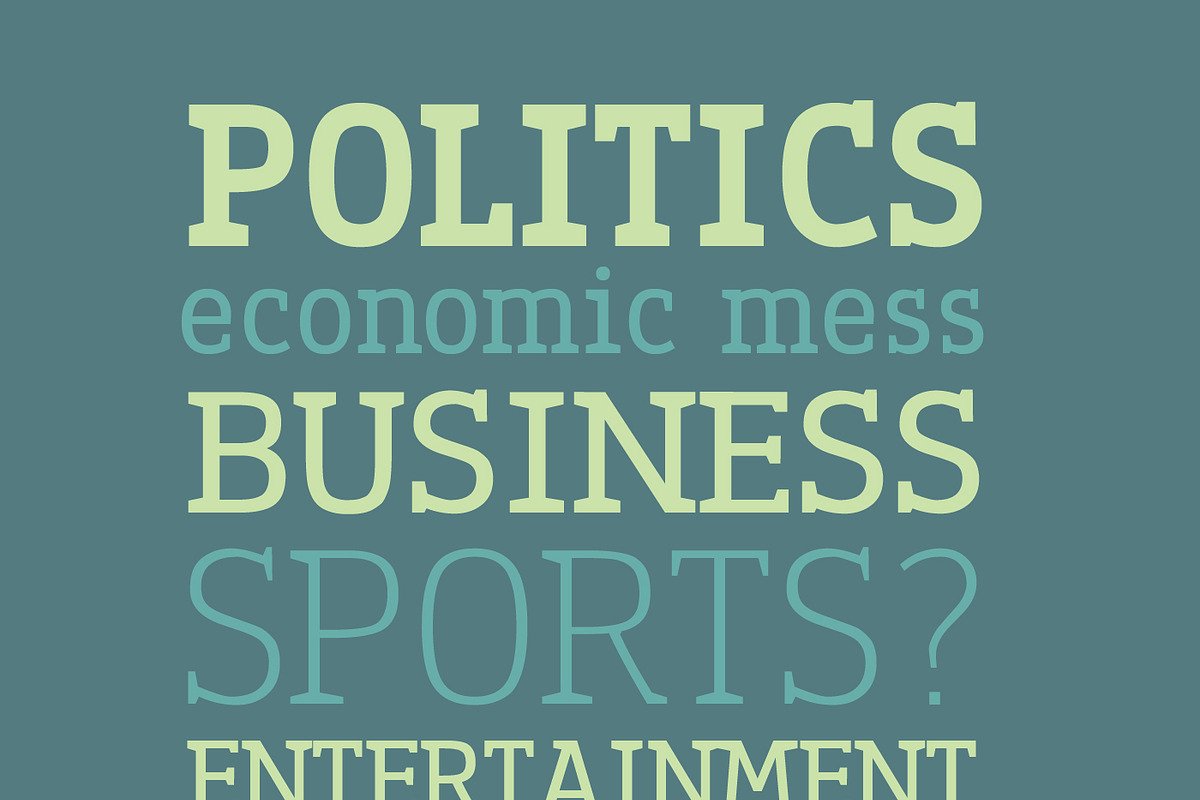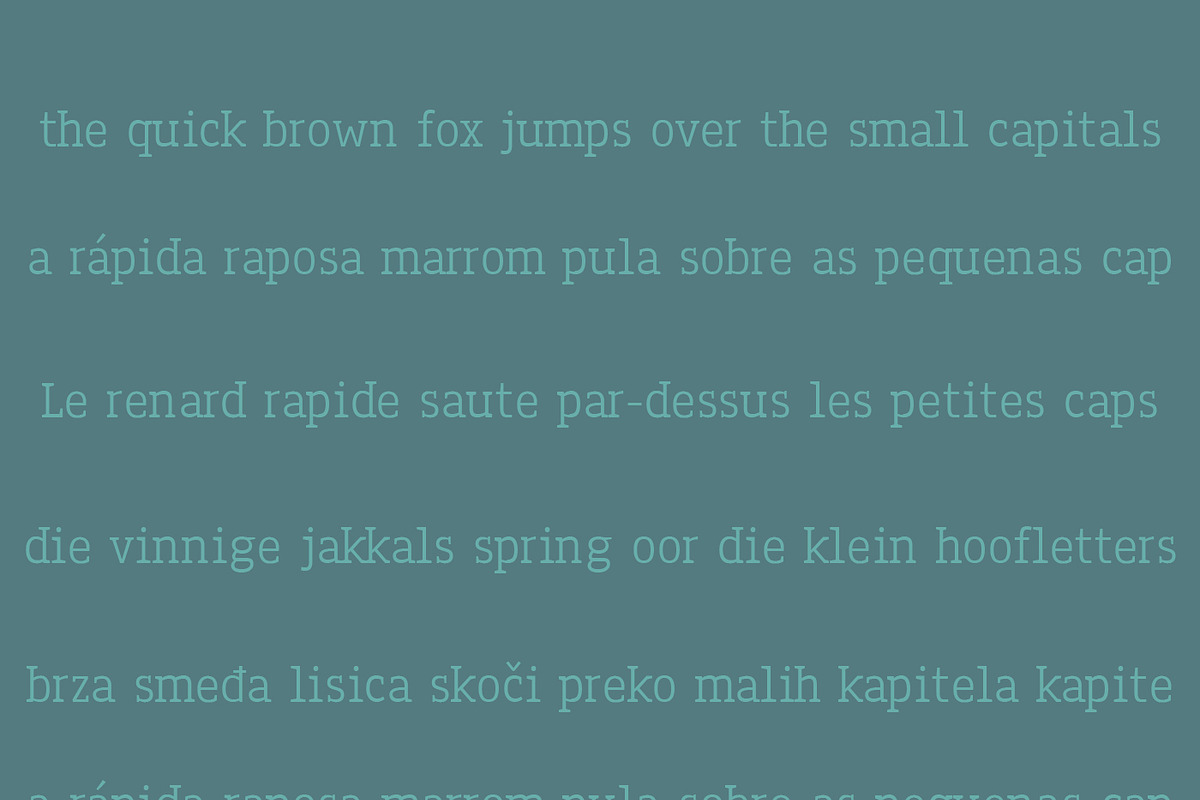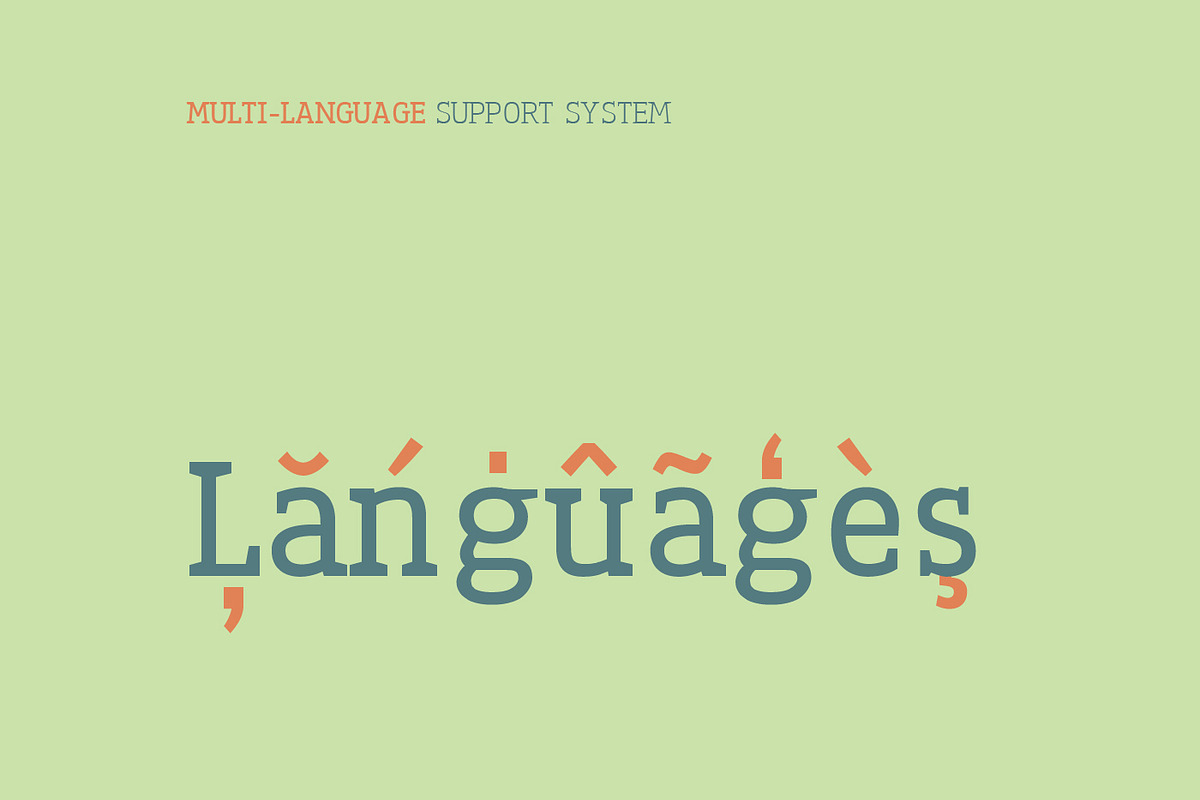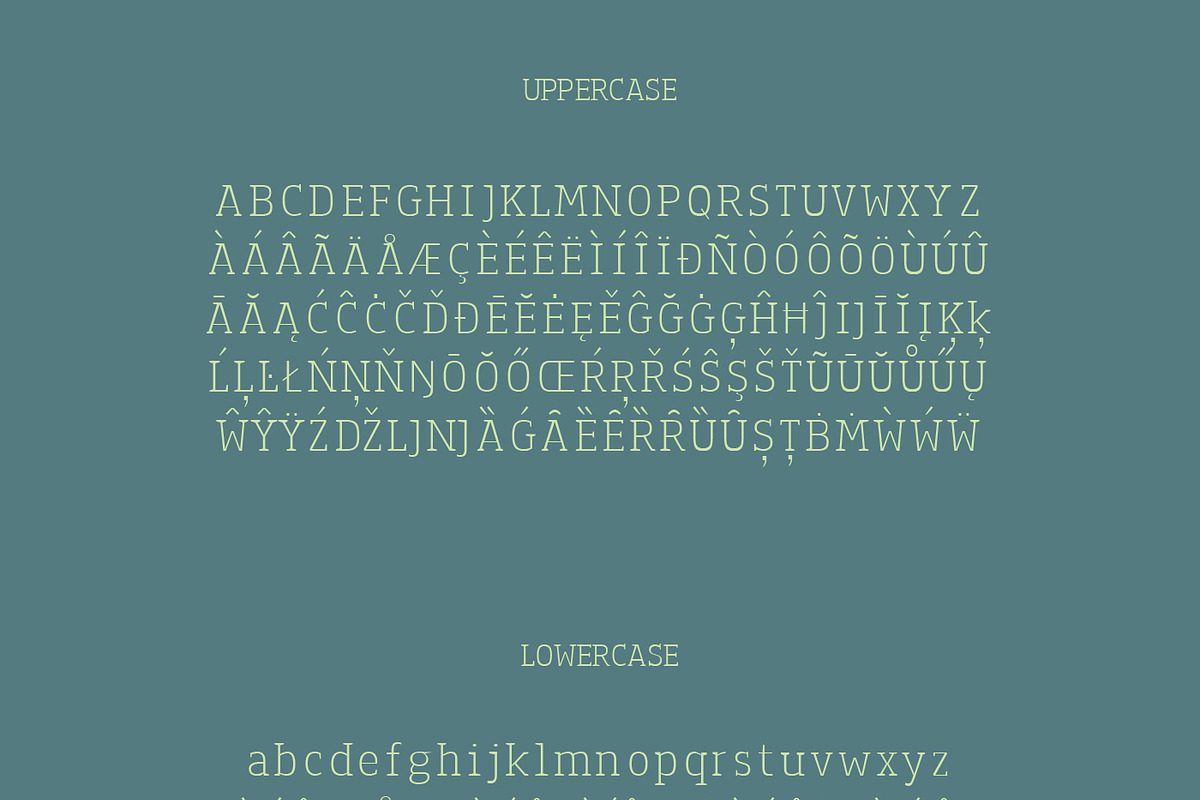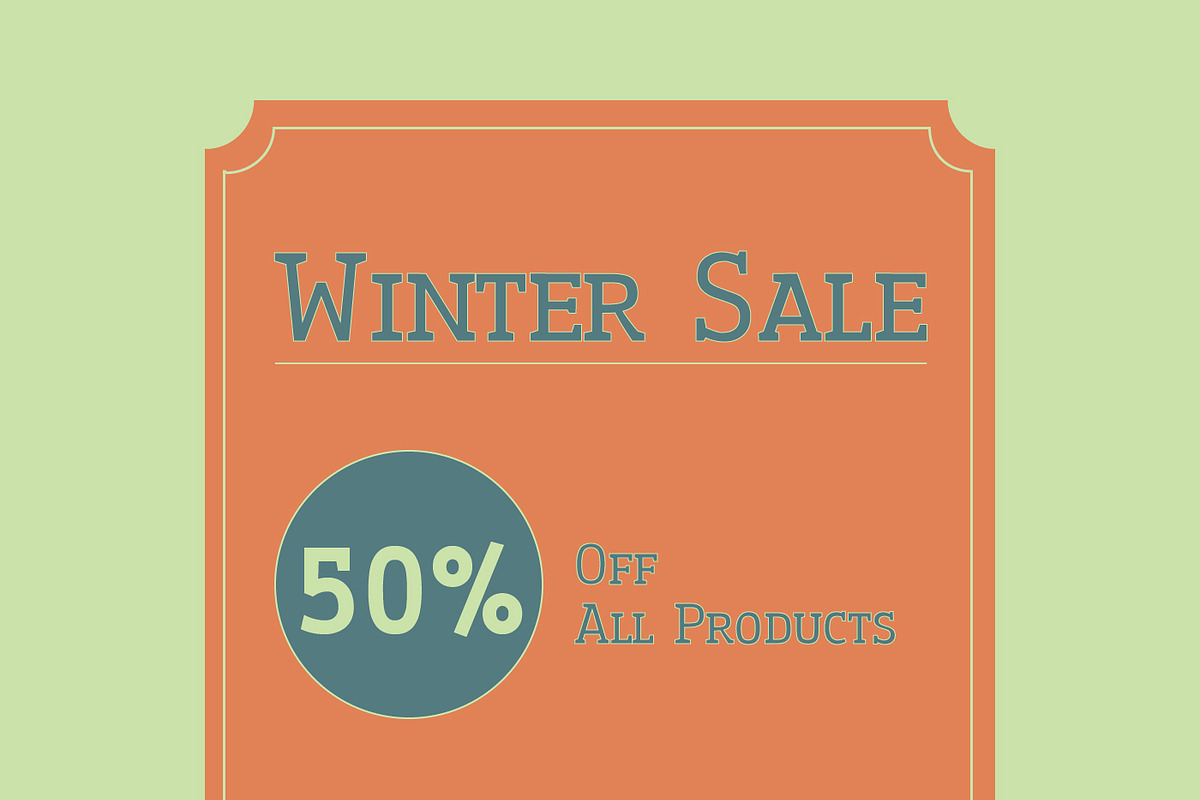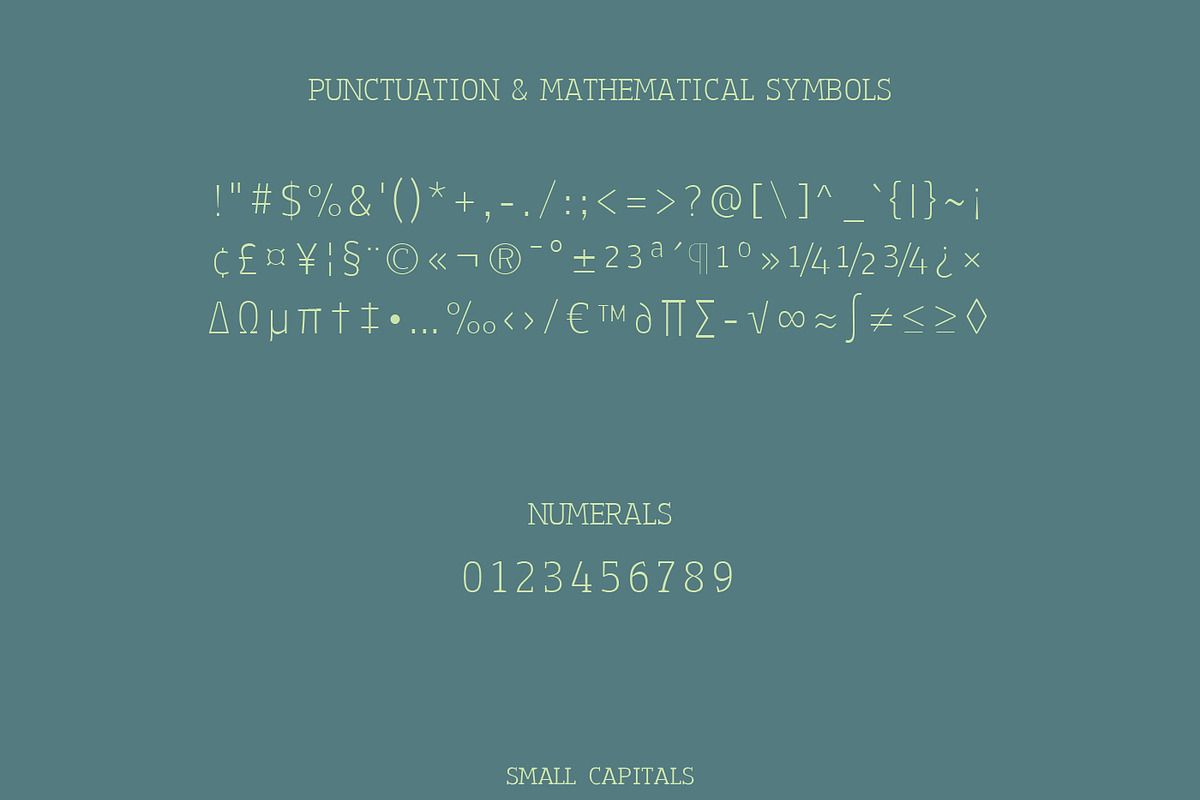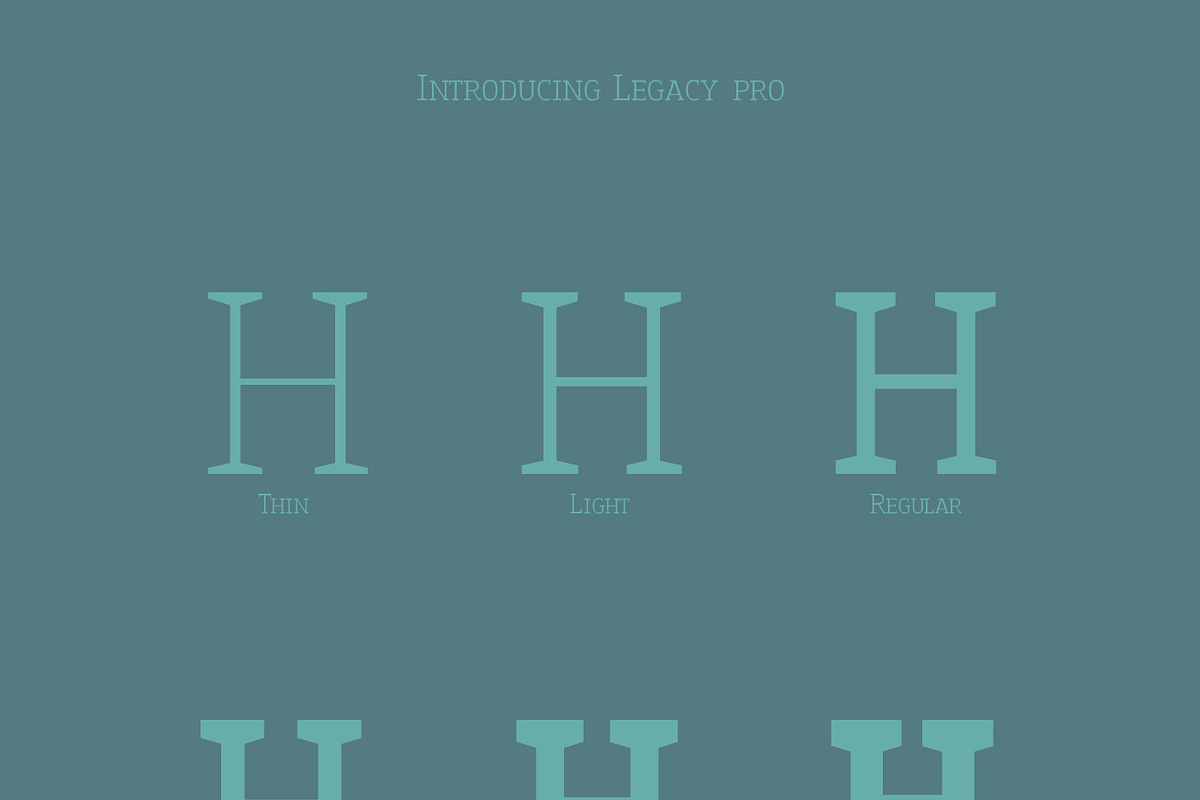
Legacy'17 Pro Typeface
Legacy’17 is a clean slab serif typeface that was created with editorial text in mind.The typeface is inspired by the events that happened in Zimbabwe when long-time ruler R.G Mugabe was ousted from power in 2017.The typeface is great for Editorial work specifically for headline text as well as body text.
- Legacy'17 Regular
- Legacy17 Thin
- Legacy17 Light
- Legacy17 Bold
- Legacy17 ExtraBold
- Legacy17 Black